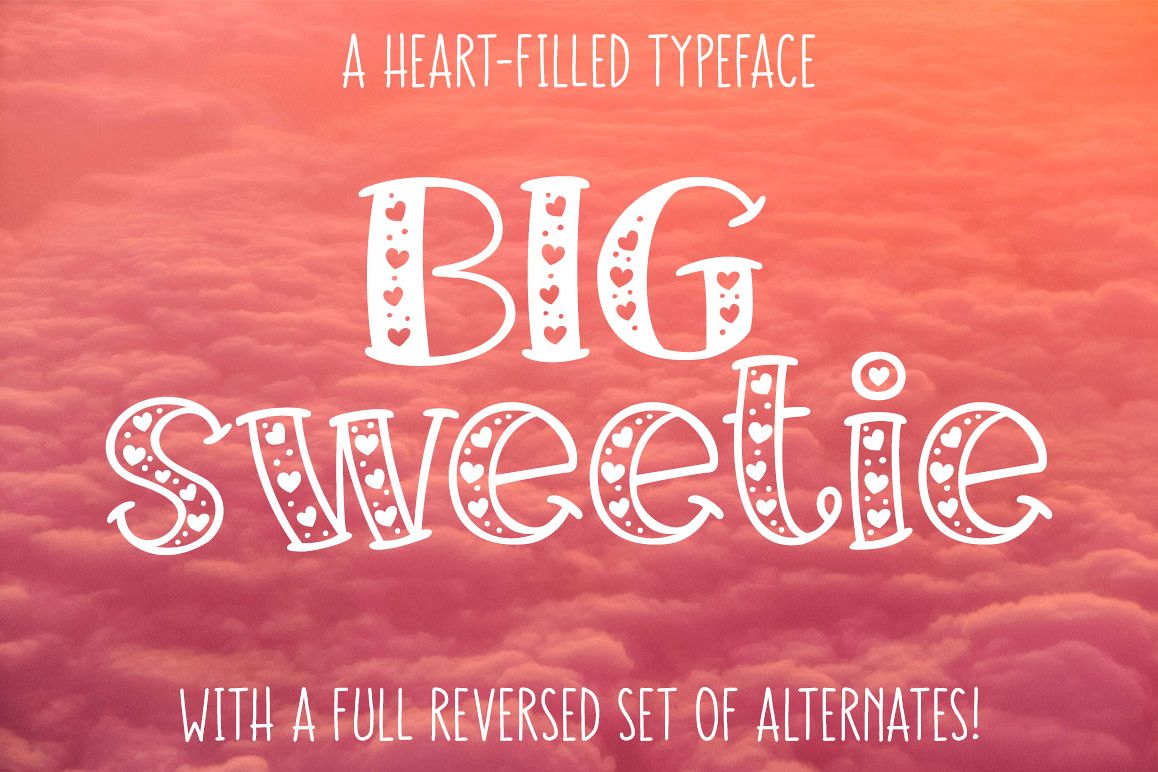
Big Sweetie - heart-filled font
Introducing a handwritten serif font that's all about the love: Big Sweetie!
Big Sweetie is a pair of fonts in one: the standard alphabet is hollowed out and filled with a scattered pattern of hearts and polka dots, and a full set of stylistic alternate letters are solid and filled with the same hearts and dots! UPDATE: The alternate alphabet also now lives in its own font file, so you're truly getting two fonts for one!
Big Sweetie also includes a variety of smaller catchwords, including: the, and, or, for, from, with, of, by, and many others. All 16 catchwords appear in both hollow and solid versions! (And also now come in their own separate font file!)
As with all of my fonts, this one includes tons of punctuation, and over 200 accented characters for multiple language support: English, French, Spanish, German, Polish, Romanian, Portuguese, Swedish, Finnish, Norwegian, Danish, Esperanto, Czech, Dutch, Welsh, Filipino, Turkish, and more.